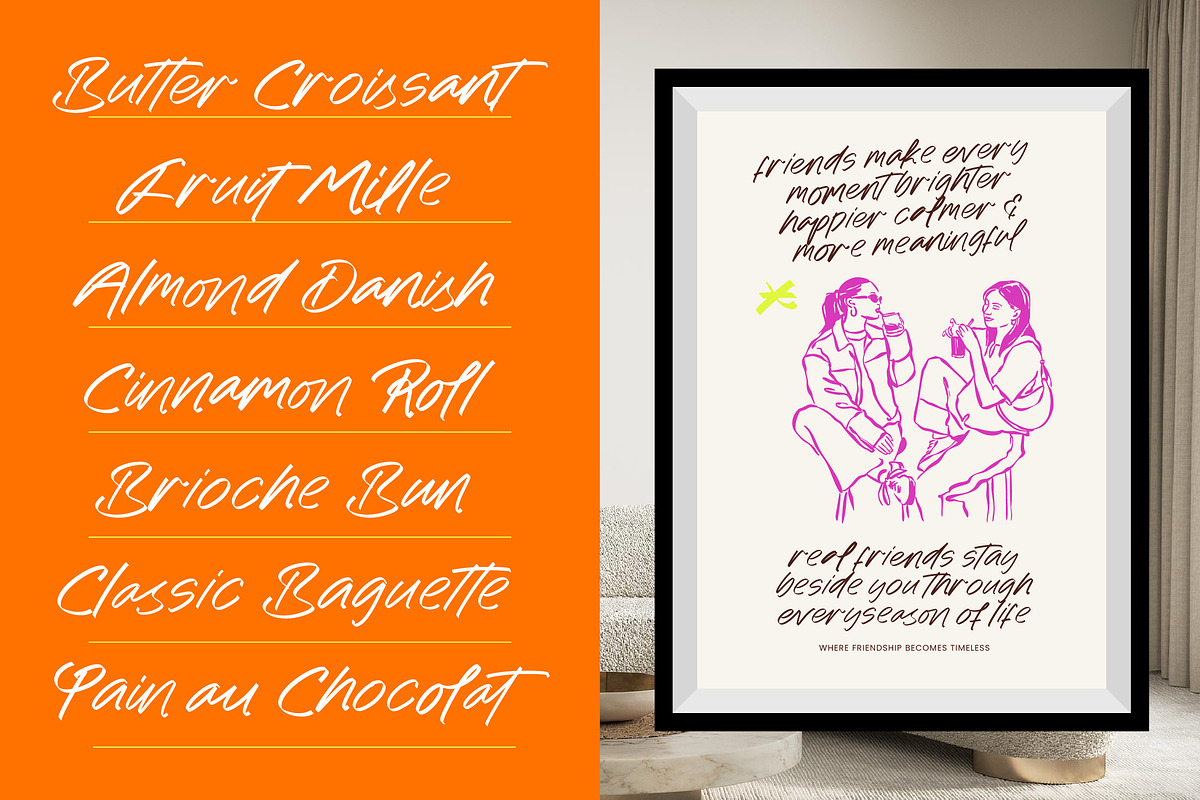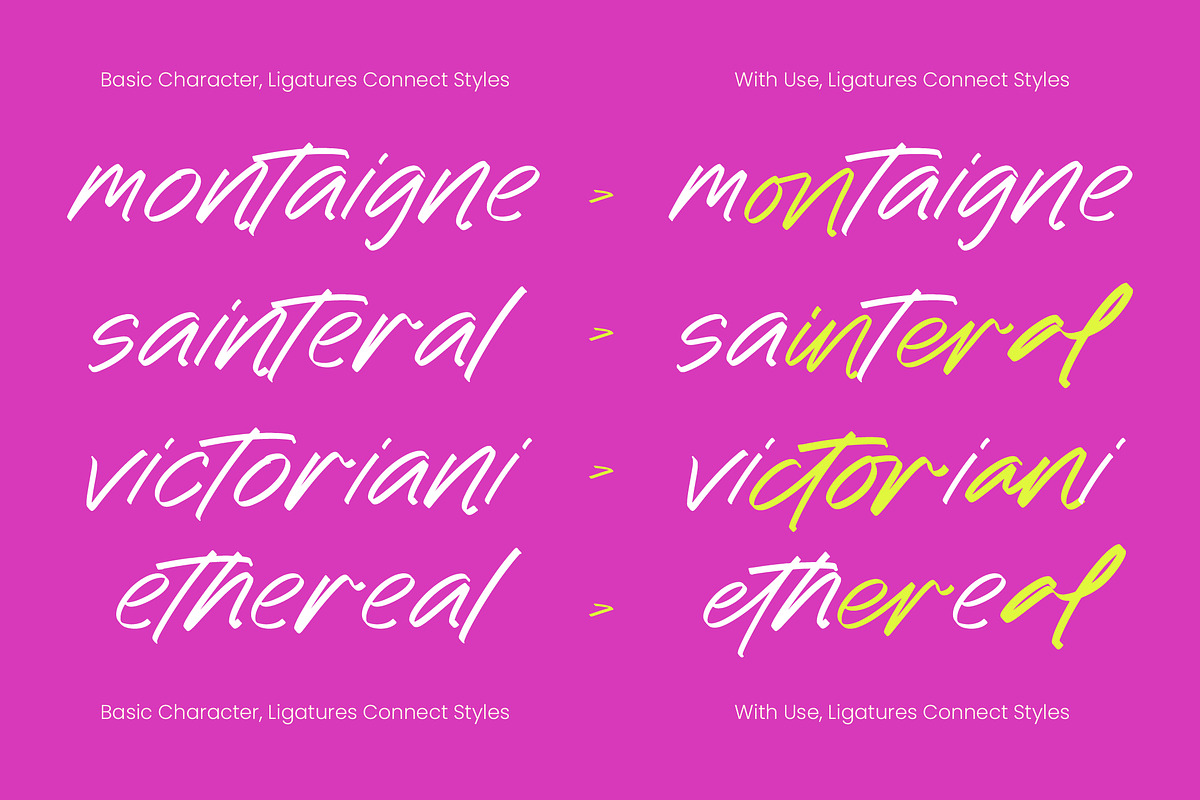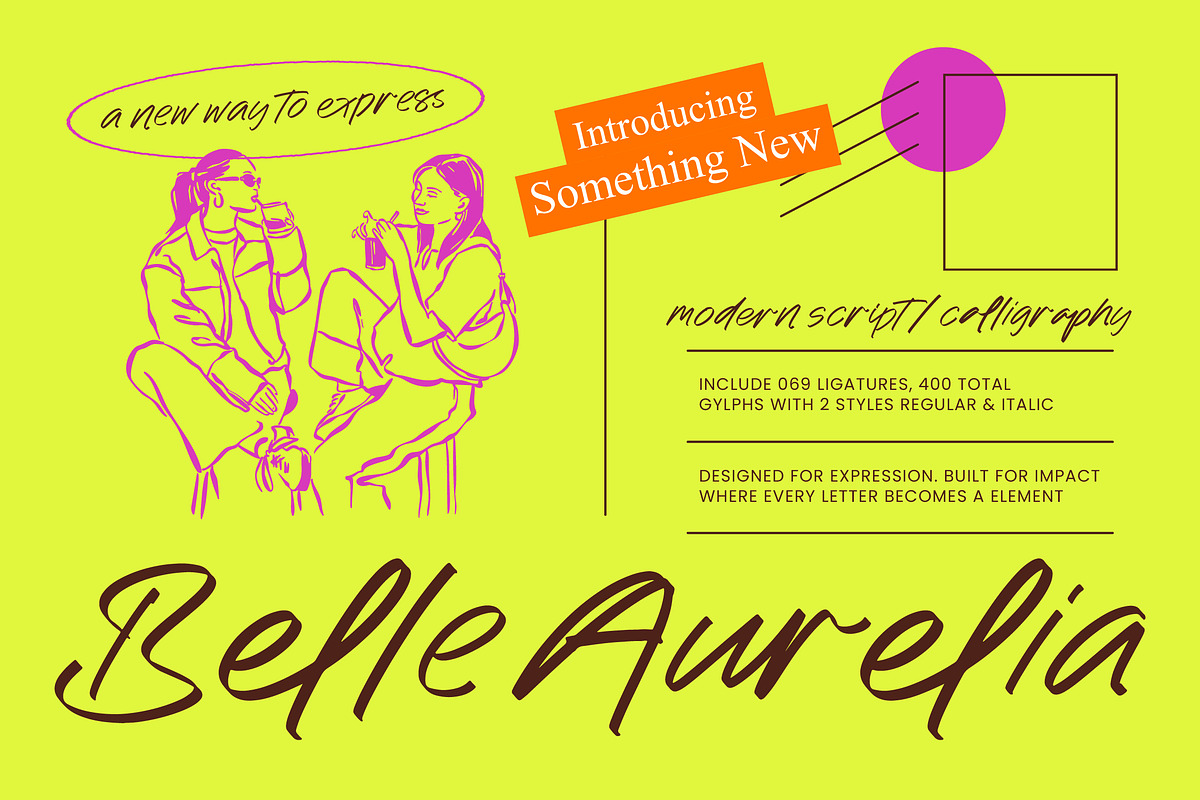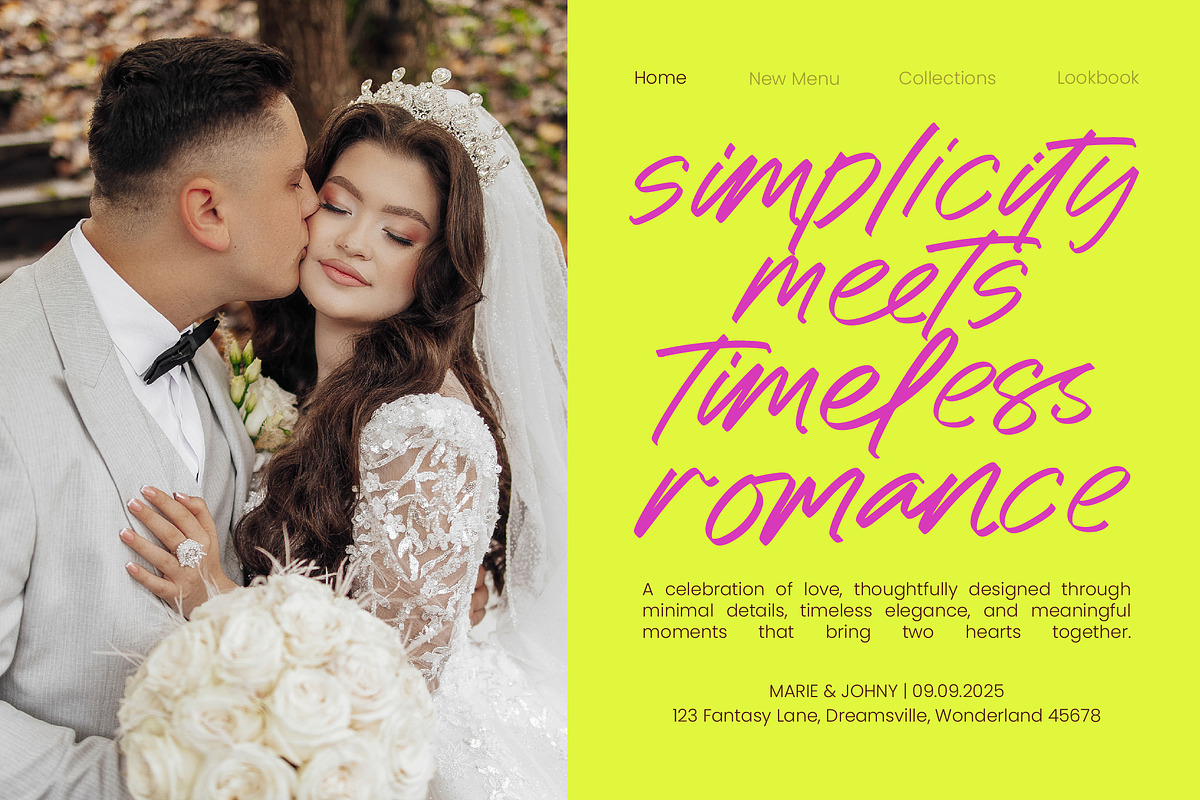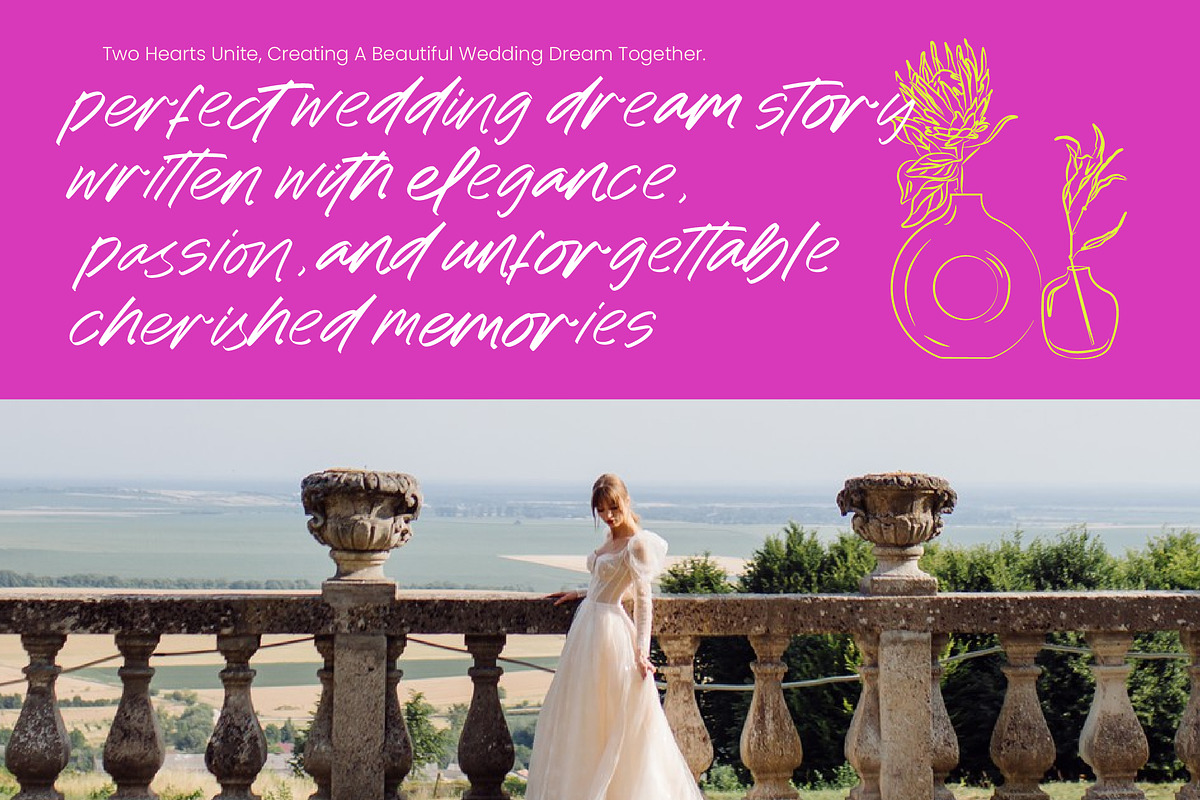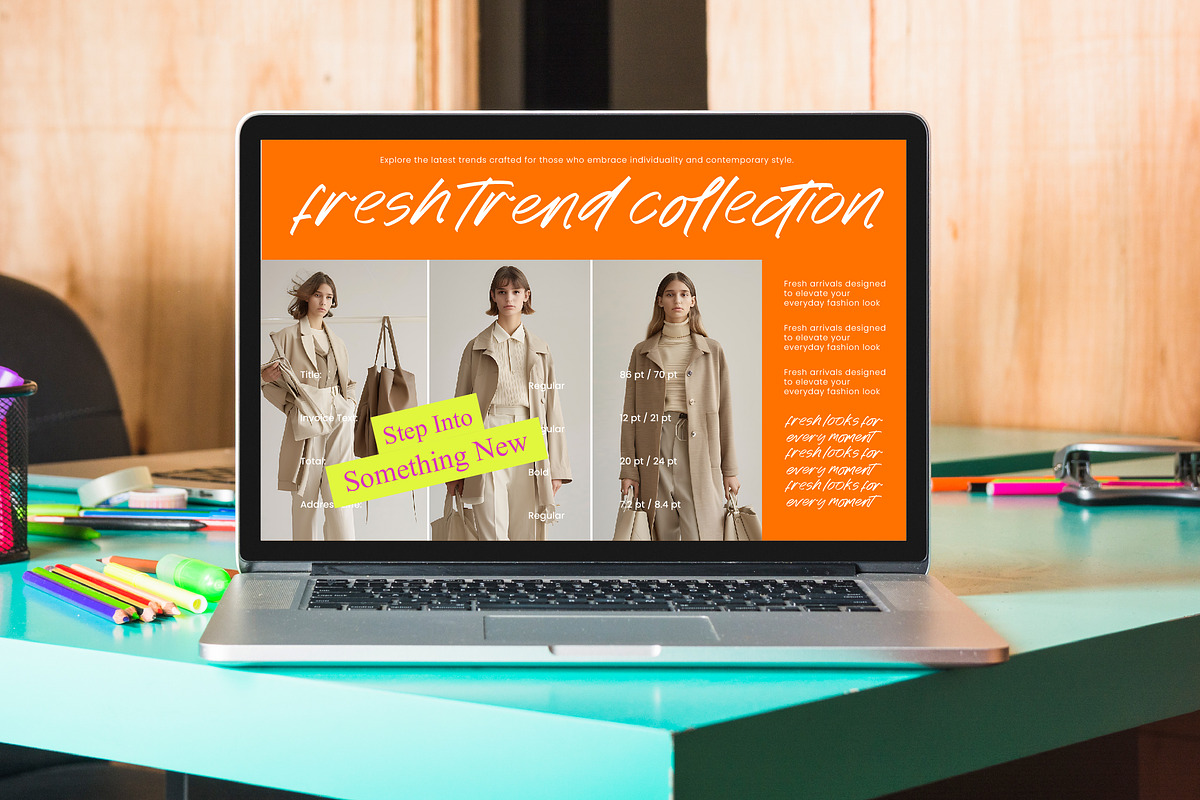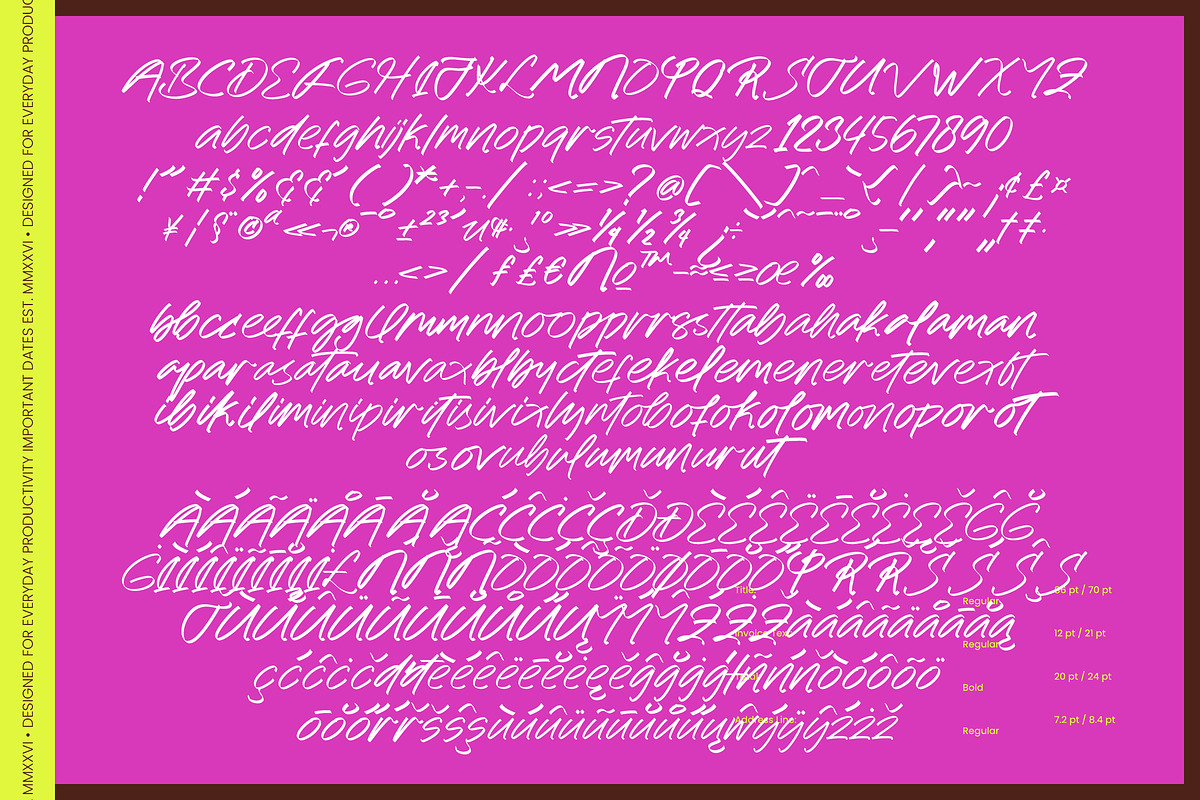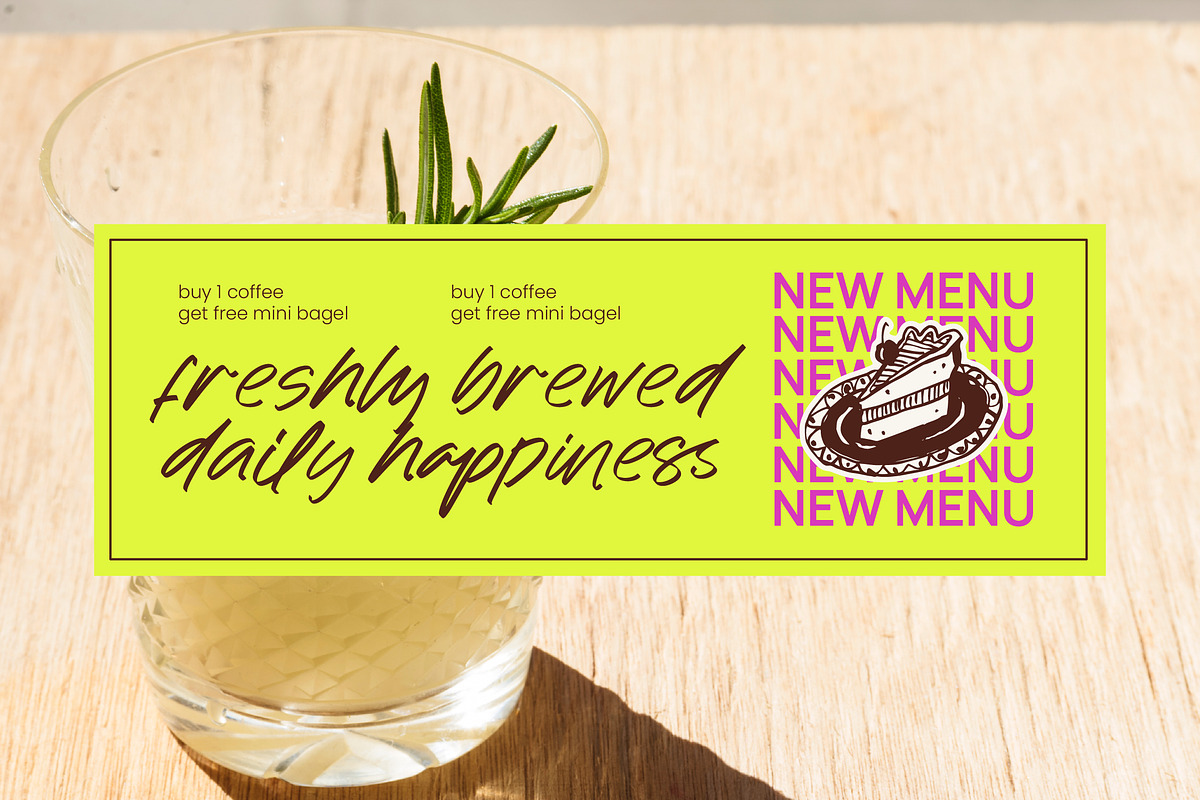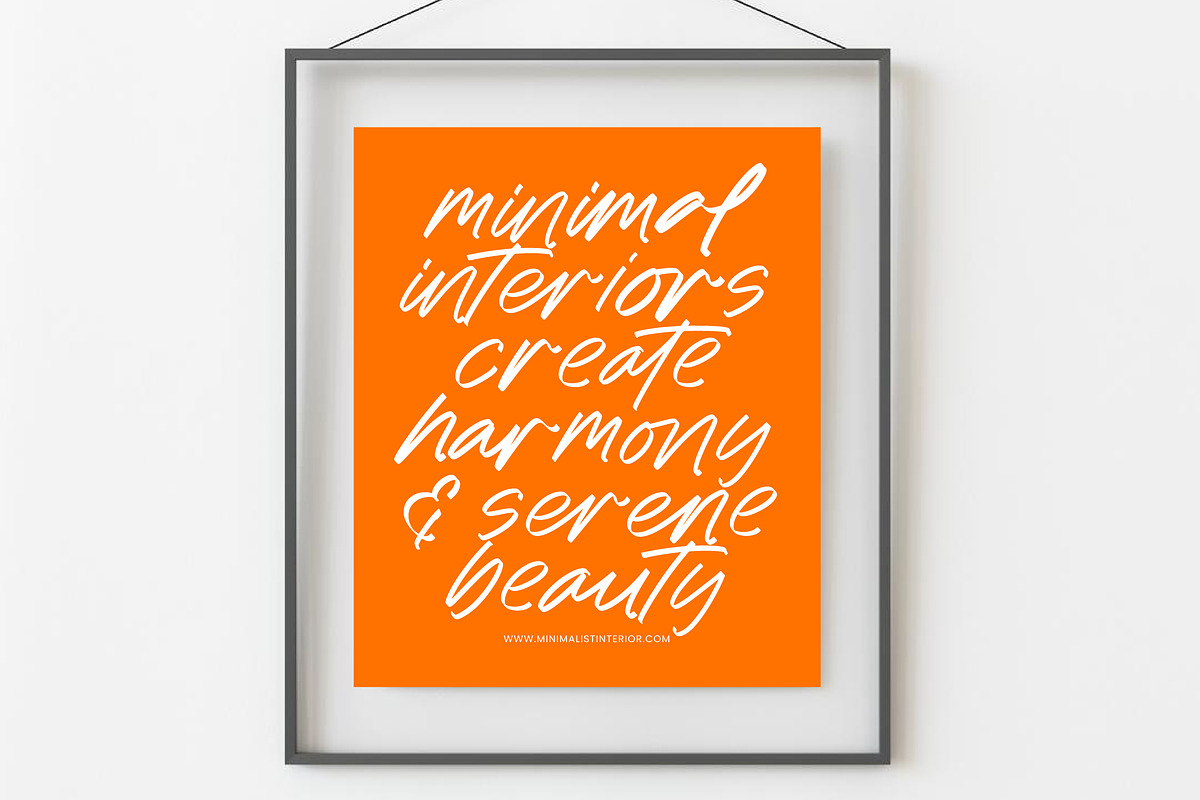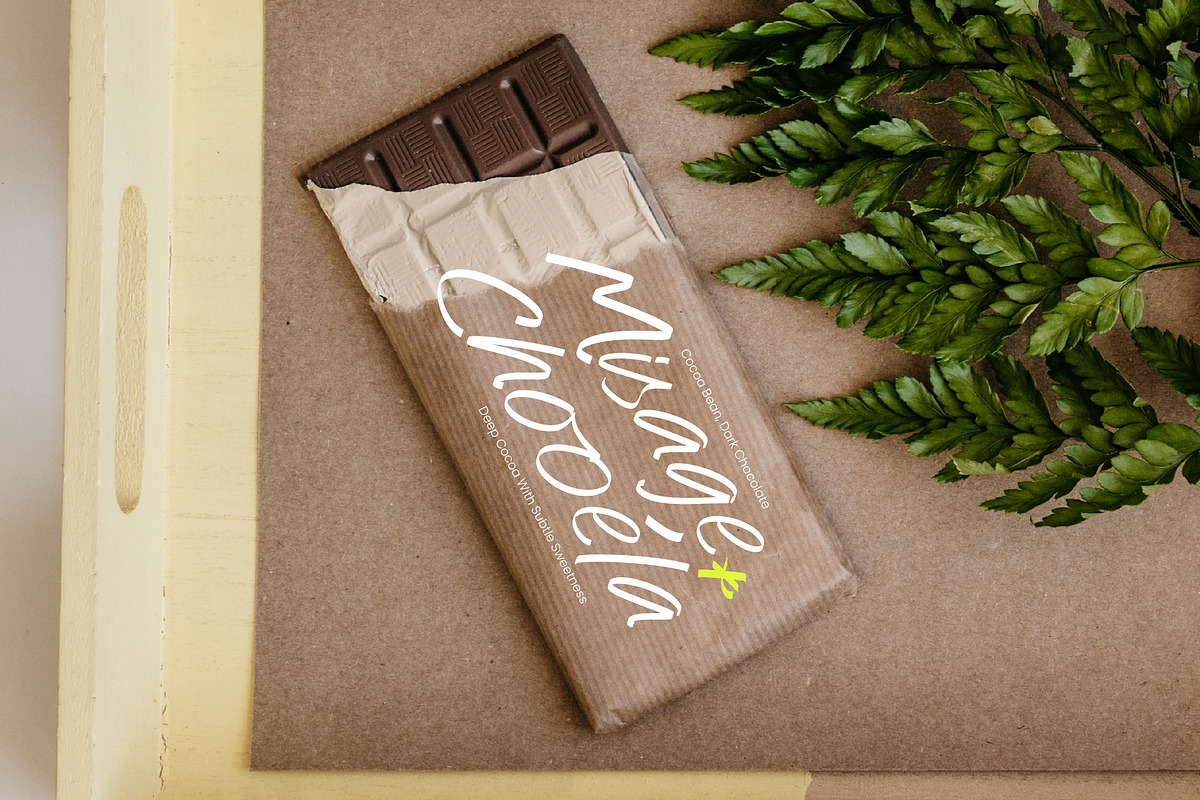
Belle Aurelia Modern Script
Belle Aurelia - Modern Script Calligraphy , Elevate your creative vision with a typeface that embodies effortless sophistication and contemporary grace. Belle Aurelia - Modern Script Calligraphy offers a sophisticated aesthetic defined by its fluid strokes and expressive calligraphy style. Available in both regular and italic styles, this typeface provides designers with the flexibility to create dynamic layouts that capture the essence of modern luxury and artistic flair.
Precision meets artistry in this meticulously crafted collection of characters designed for maximum visual impact. Featuring 400 total glyphs and 69 unique ligatures, Belle Aurelia - Modern Script Calligraphy ensures that every word becomes a bespoke piece of art. The high-contrast lines and rhythmic flow make it an essential tool for those seeking professional typography that stands out in a crowded marketplace.
Expand your brand’s reach across borders with a font designed for global communication. With its extensive multilingual support, Belle Aurelia - Modern Script Calligraphy adapts seamlessly across global markets, making it incredibly versatile for international projects. This adaptability ensures your message remains consistent and elegant, regardless of the linguistic context or geographic audience you aim to engage.
Discover the perfect typographic partner for high-end design ventures and luxury branding. Belle Aurelia - Modern Script Calligraphy is perfect for premium packaging, editorial design, and the fashion industry where a touch of hand-drawn elegance is required. Whether it is used for wedding stationery, social media content, or visual identities, this font delivers a polished and memorable finish to any creative endeavor.